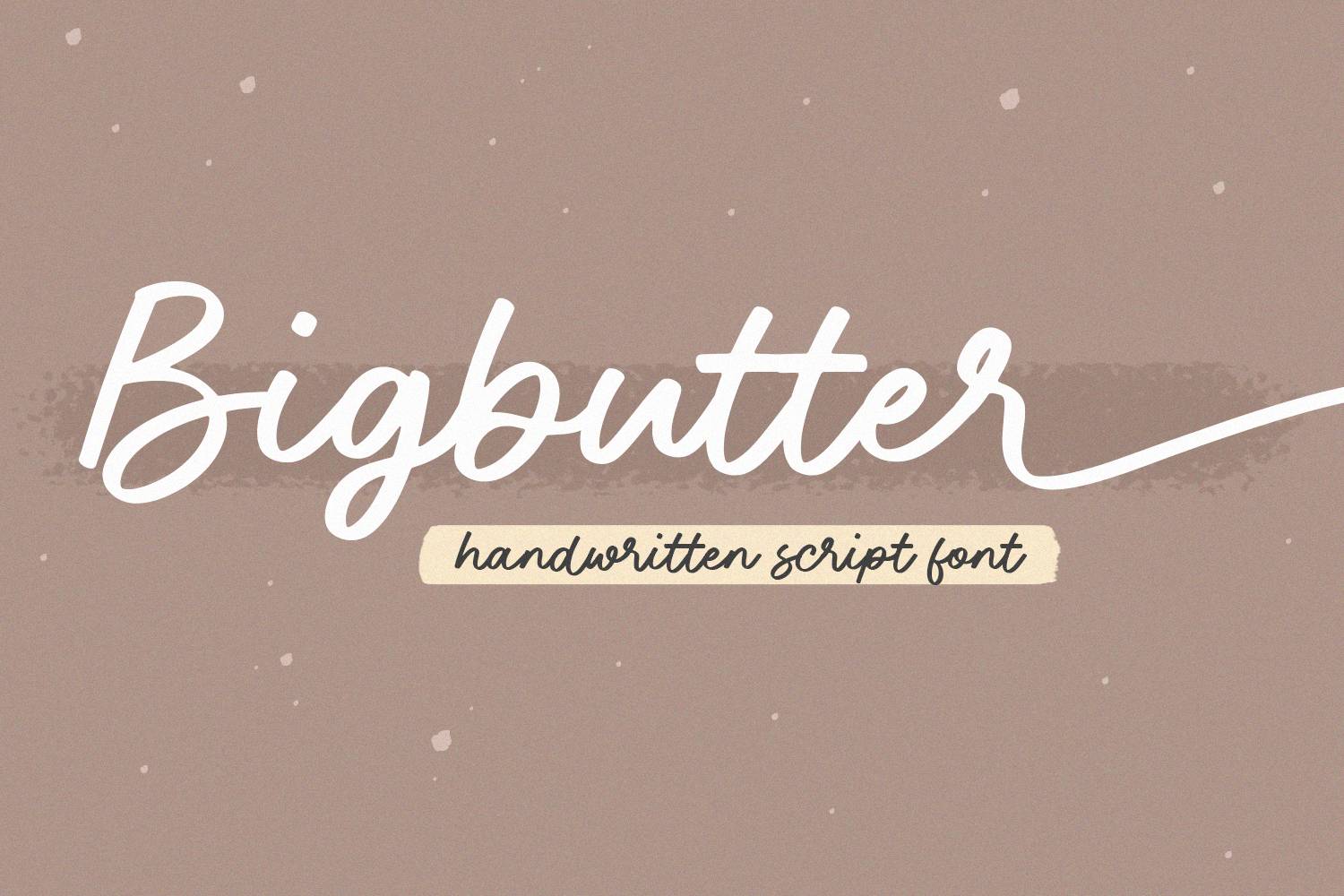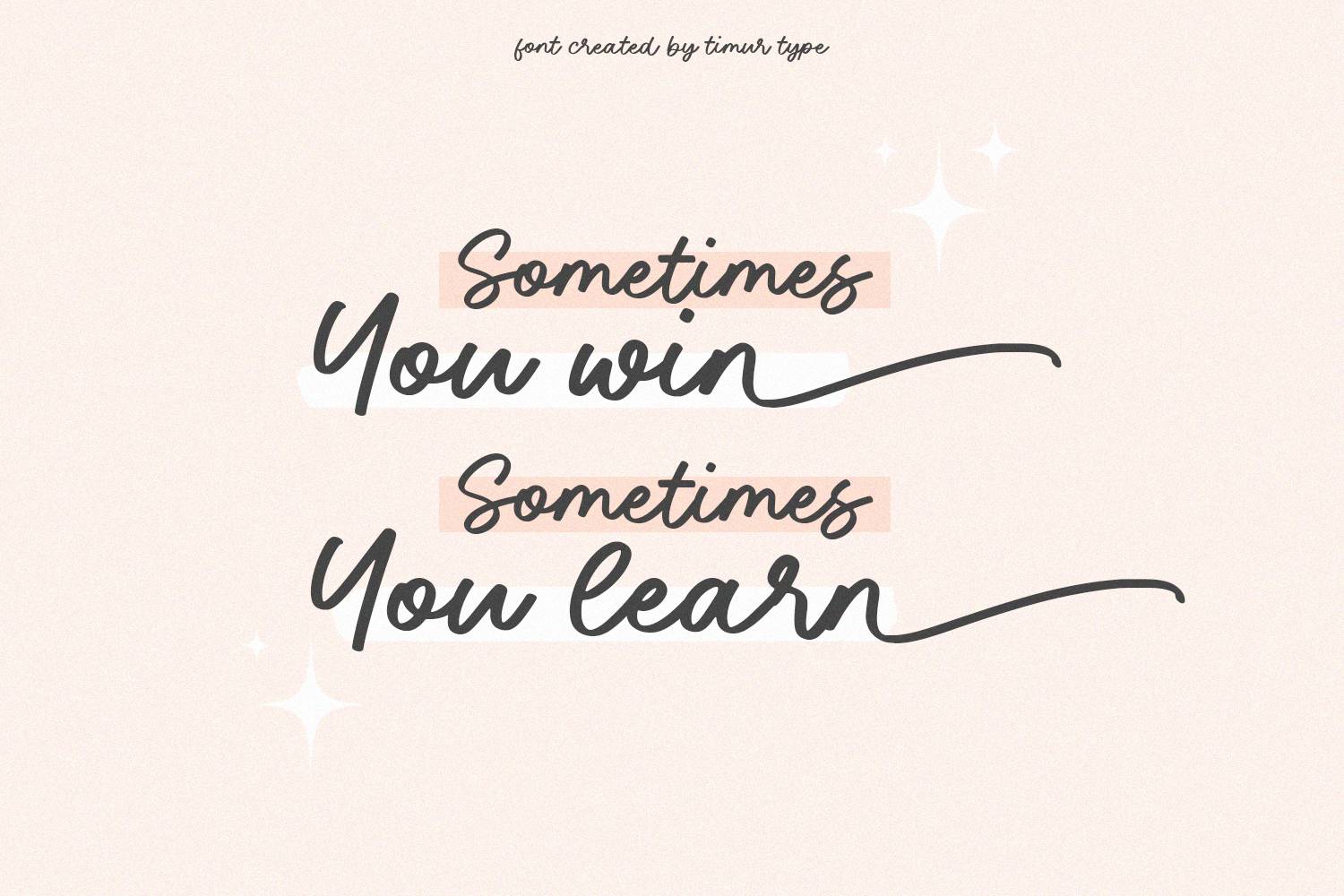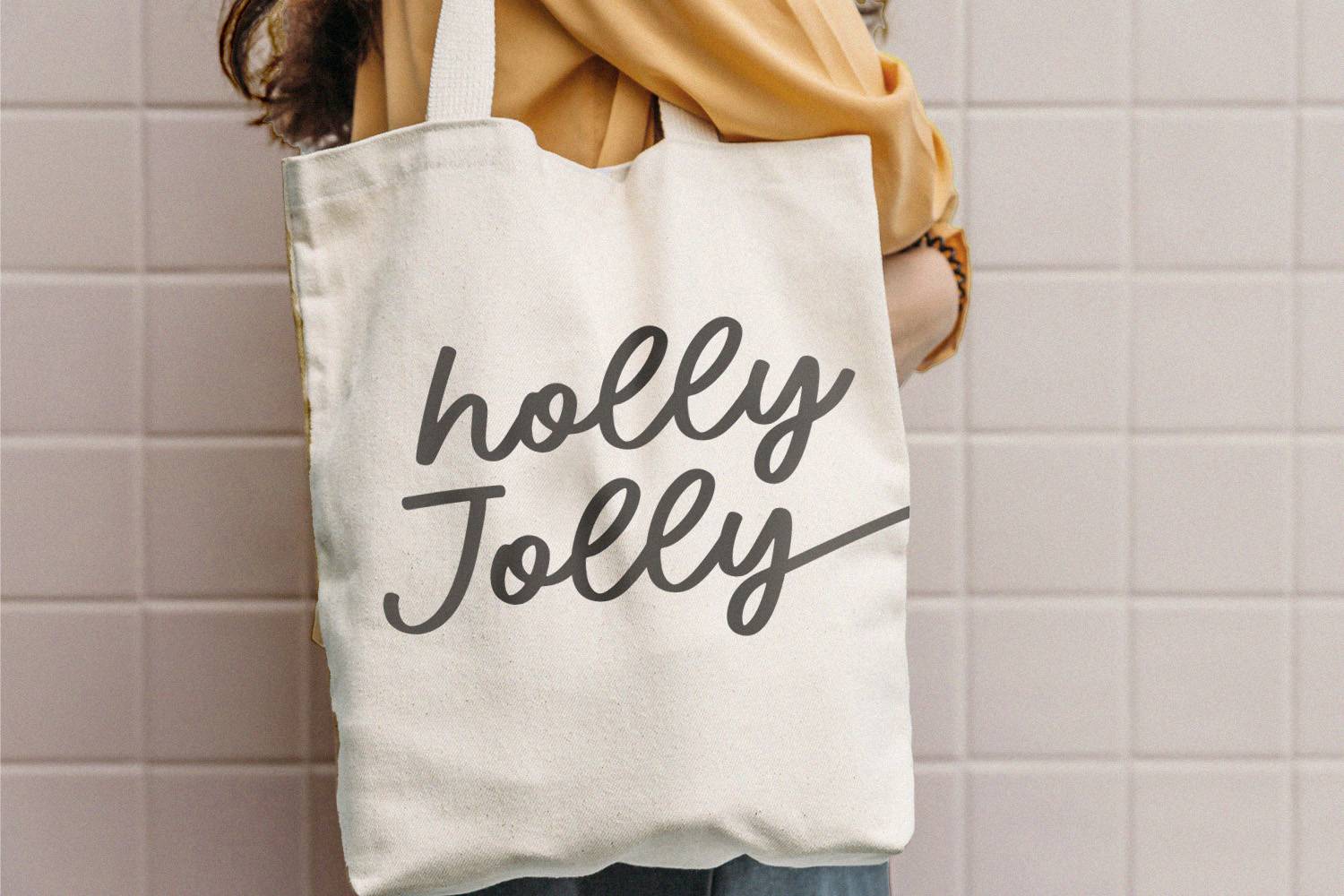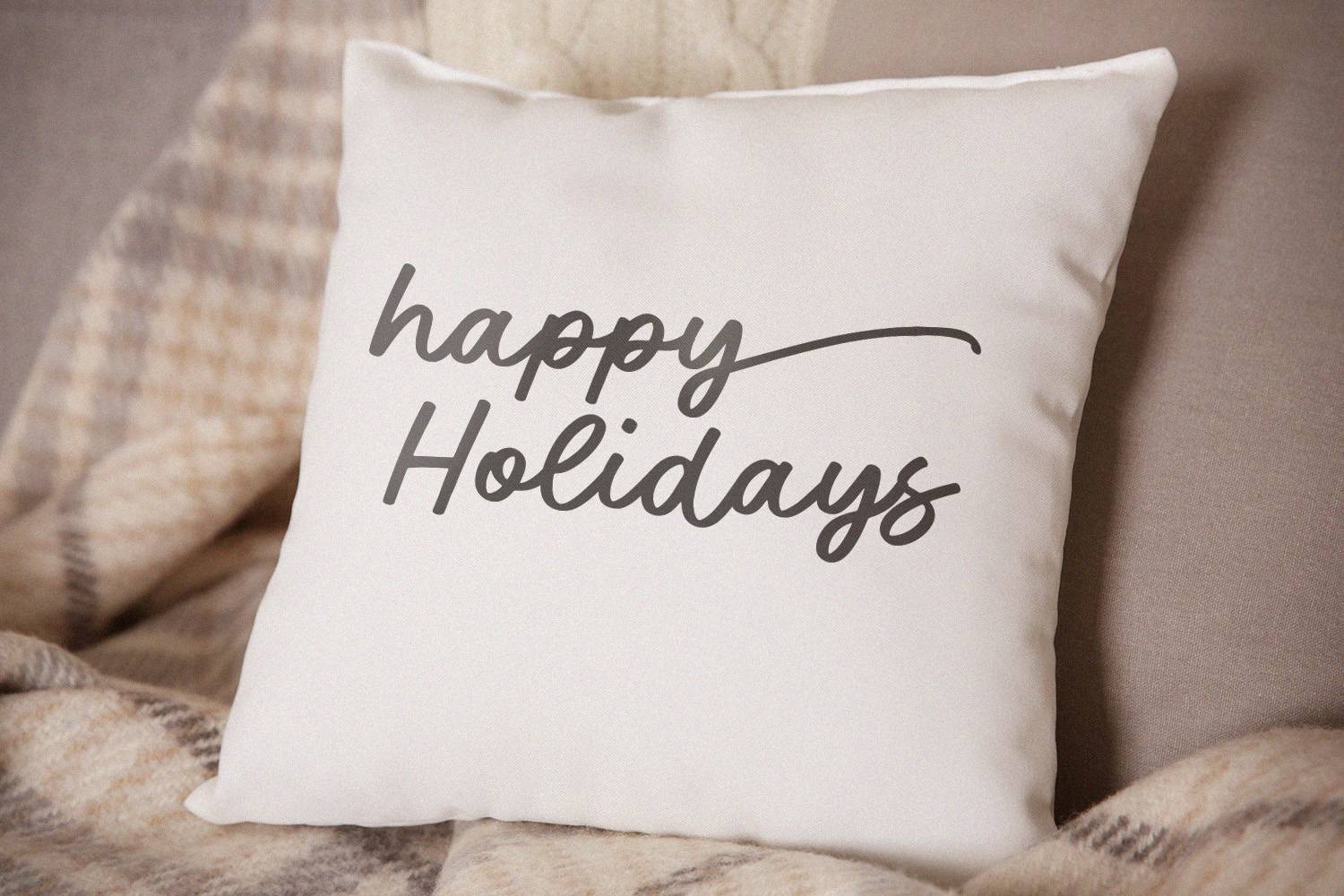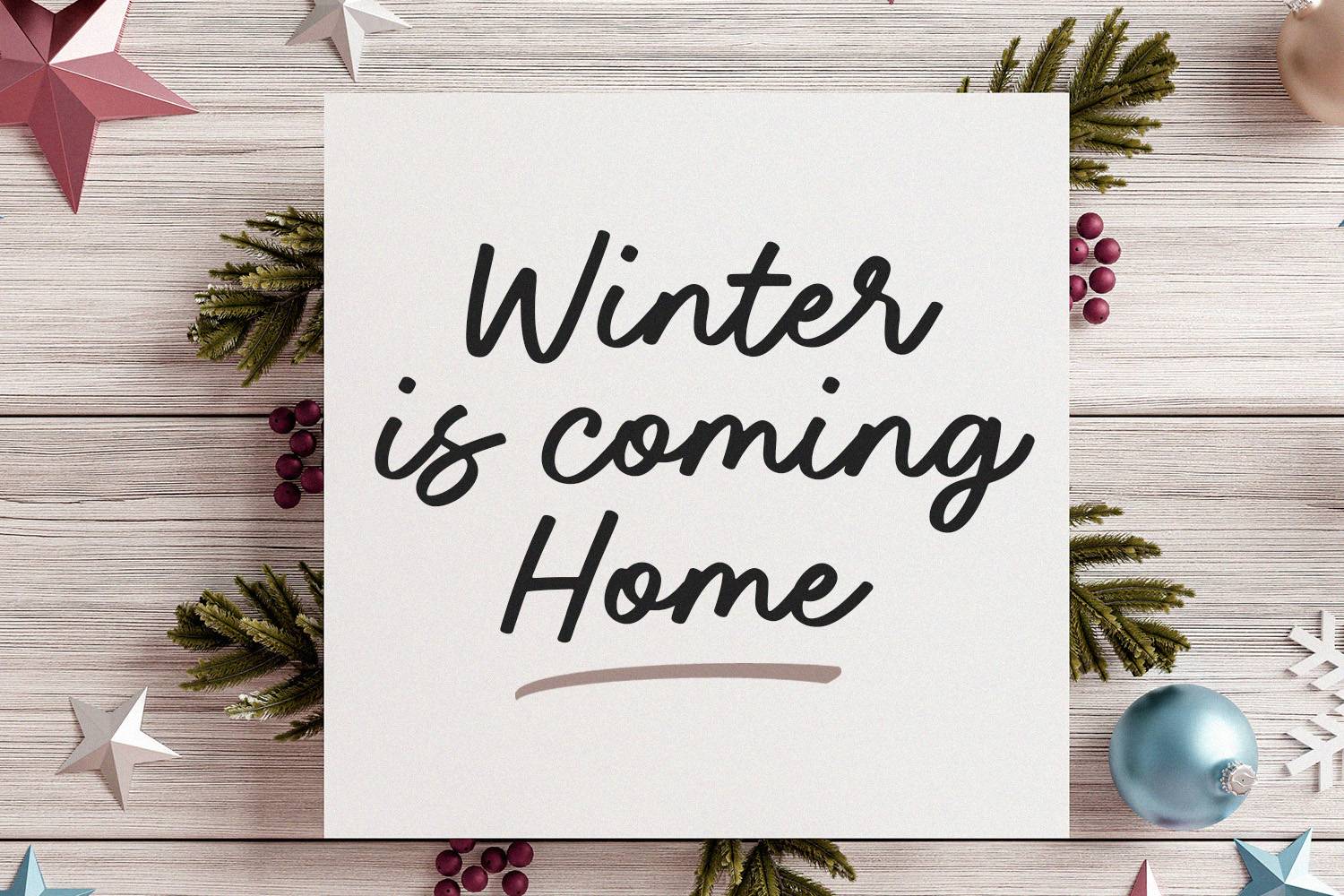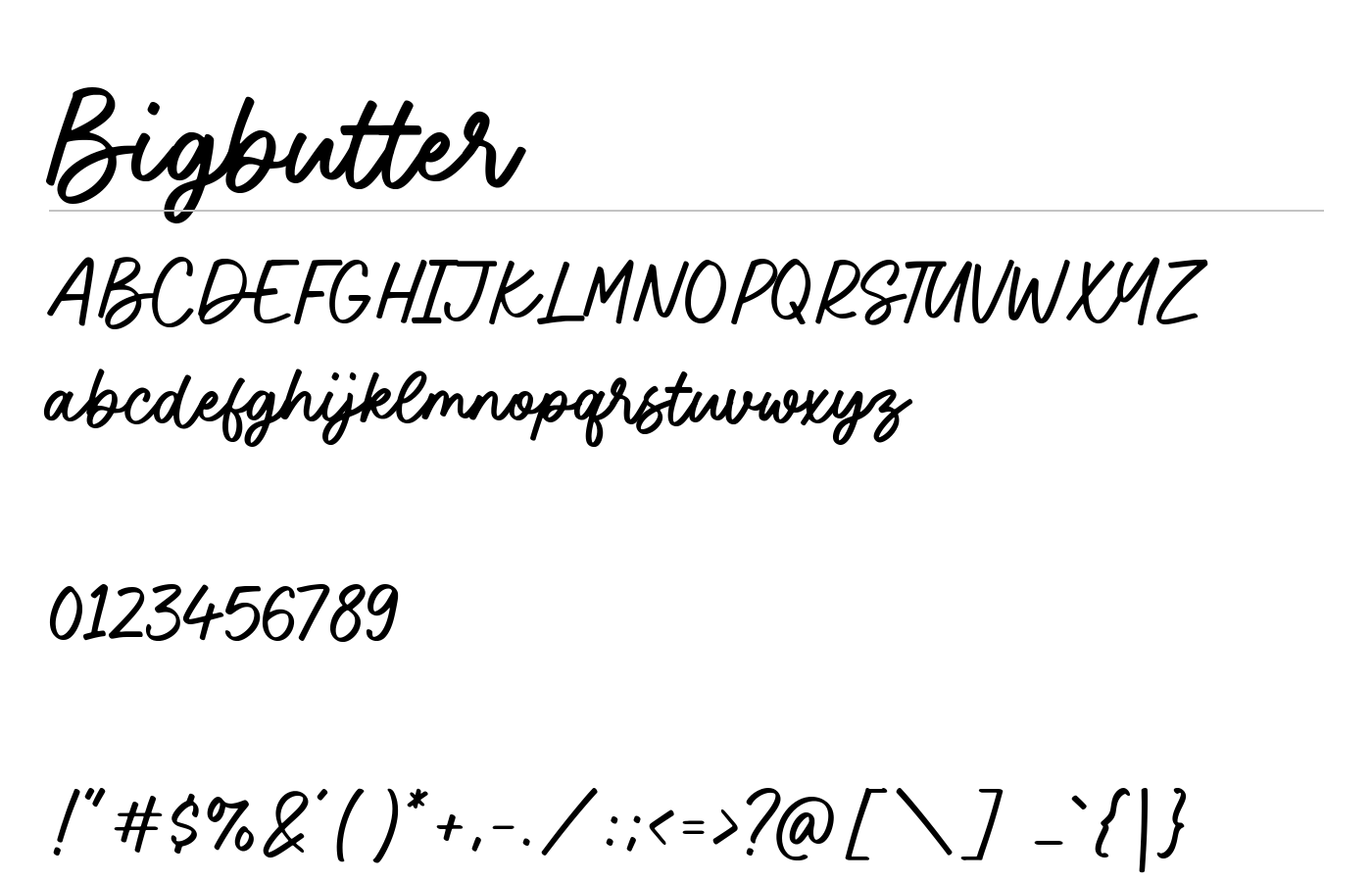
Bigbutter is a lively and casual script font with a handwritten feel, featuring smooth, flowing strokes and a medium weight. Its playful, slightly slanted letterforms convey friendliness and approachability, making it ideal for creative branding, invitations, and informal designs. This font works well for projects seeking a personal touch without sacrificing readability.
Bigbutter Font
About Bigbutter Font